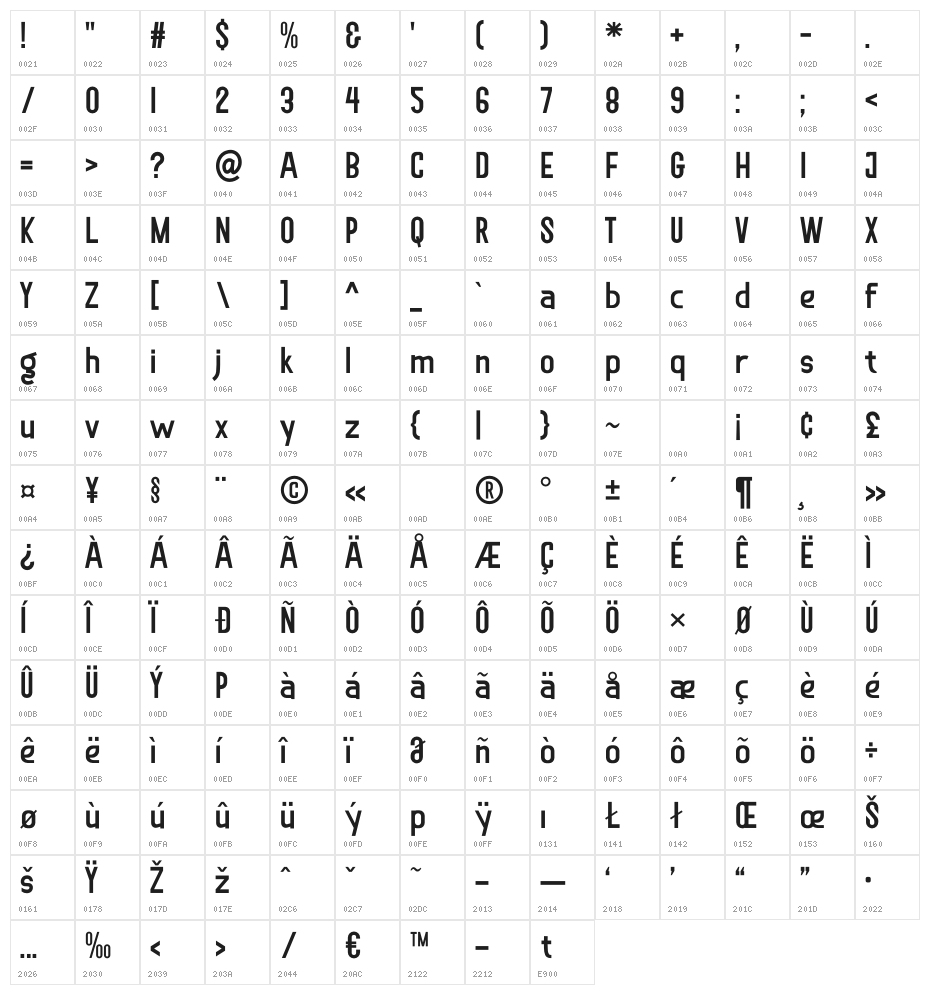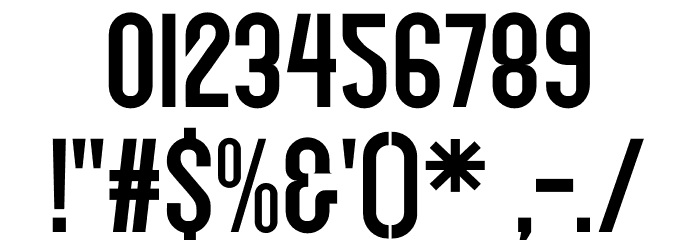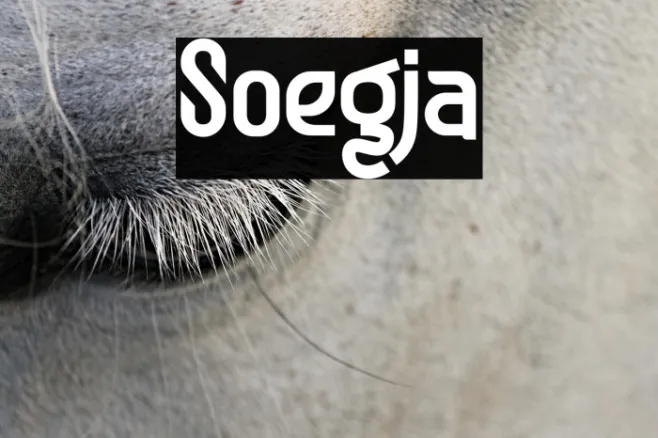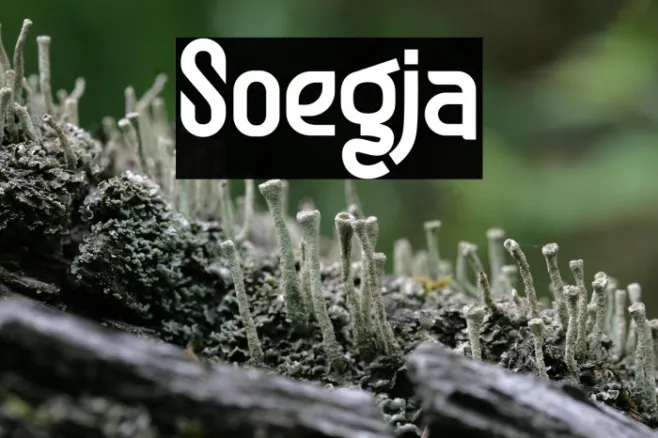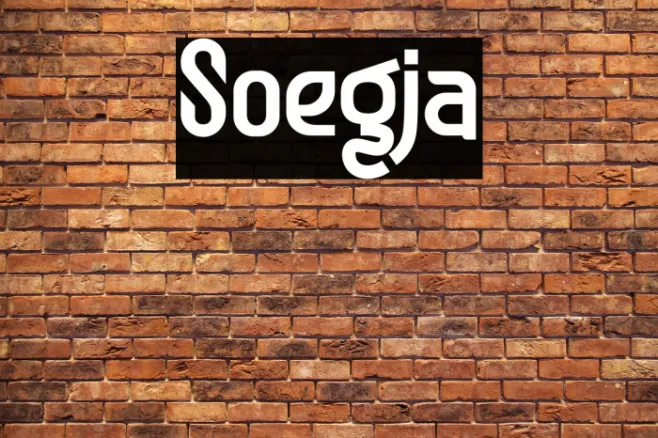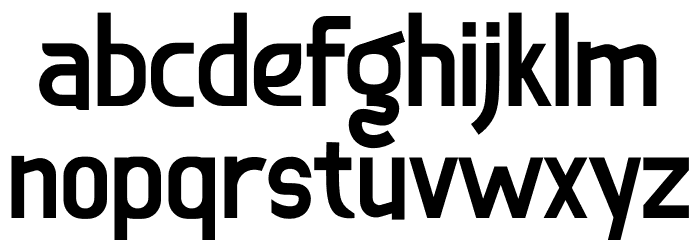
Soegja Font
Soegja Description
This font features a bold and modern sans-serif style with a strong geometric structure. The uppercase letters are tall and uniform, with a consistent stroke width that gives a clean and contemporary appearance. The lowercase letters maintain the same geometric precision, offering a harmonious balance between the characters. The numerals are clear and legible, designed to match the overall aesthetic of the font. Special characters are included, maintaining the same boldness and clarity. This font is suitable for projects that require a modern and impactful look.
| Proposed Projects | Ideal for branding, headlines, posters, and digital media where a strong visual impact is needed. |